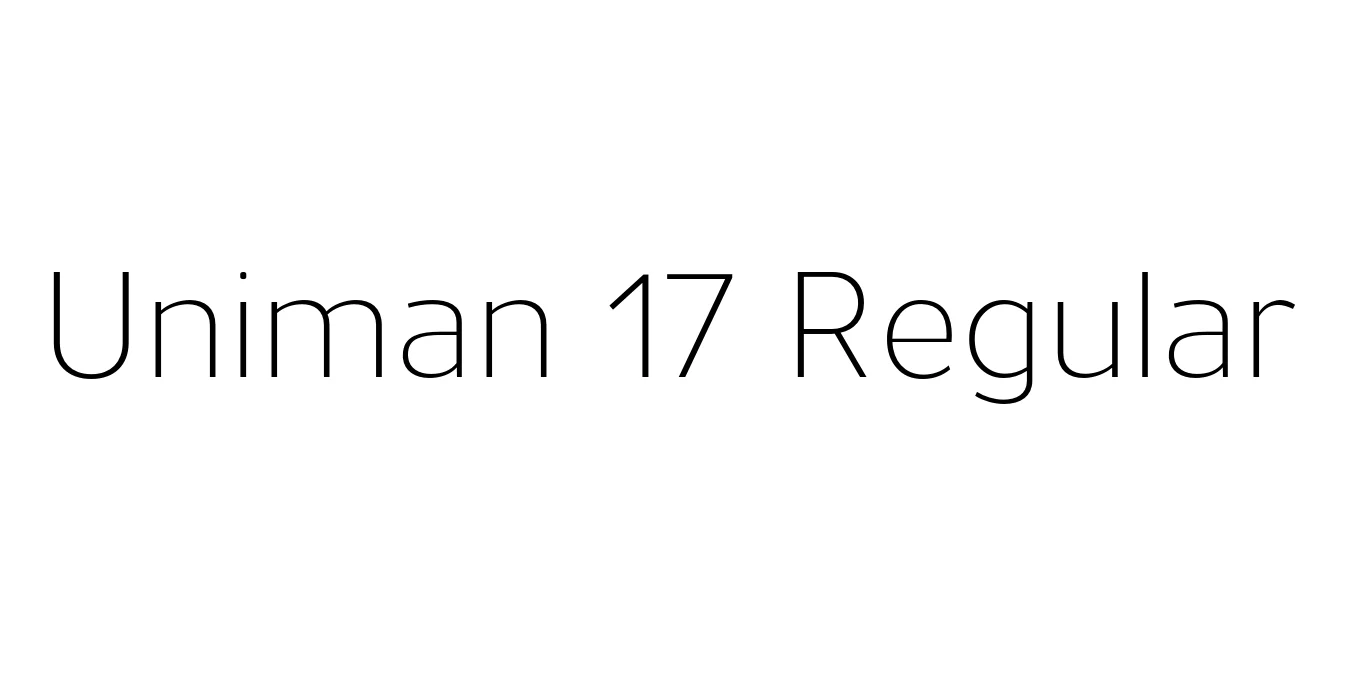
Uniman 17 Regular
Designed by Thariq Al Fatih
| Font Name | Uniman 17 |
| Category | Sans-serif |
| Designer | Thariq Al Fatih |
| Similar Fonts | Helvetica, Montserrat, Roboto |
Uniman 17 Regular is a sophisticated and versatile sans-serif typeface designed with geometric precision and modern sensibilities. It was engineered to offer a clean, neutral aesthetic that adapts seamlessly to various design contexts, providing a bridge between high-end fashion branding and tech-focused digital interfaces.
The font features consistent stroke widths and open apertures, ensuring maximum legibility even at smaller sizes. Uniman 17 Regular is particularly effective in editorial design and corporate communication, where its professional tone and understated elegance help convey a sense of reliability and contemporary style.
Uniman 17 Regular Best Uses
Perfect for creating modern visual identities and minimalist logo designs.
Optimized for high readability in digital interfaces and body content.
Excellent for clean magazine layouts, headers, and organized sub-headings.
Ideal for business presentations, reports, and professional stationary.